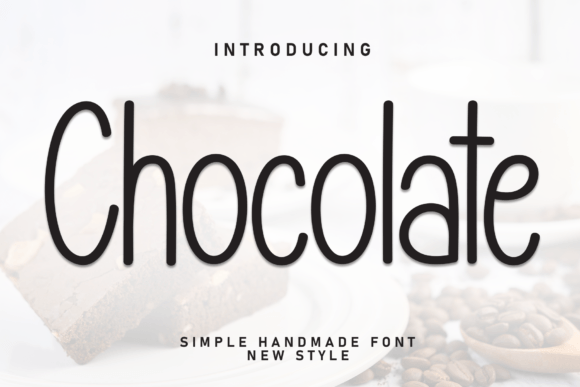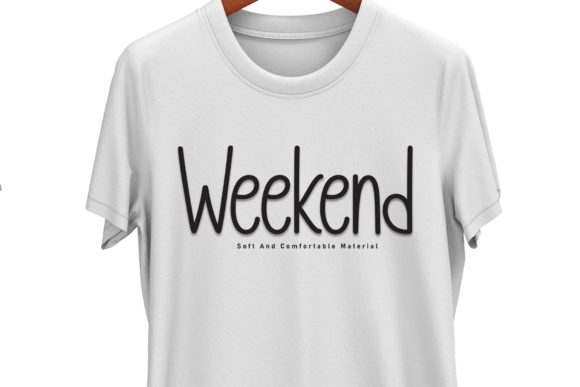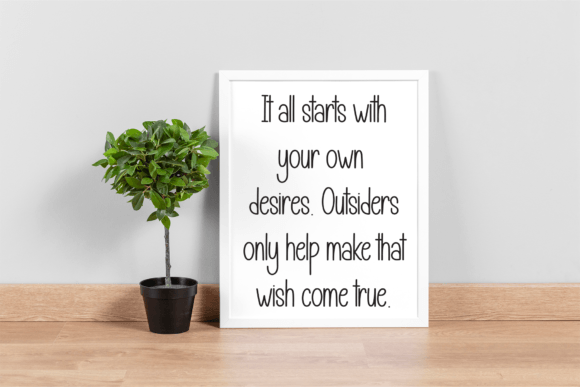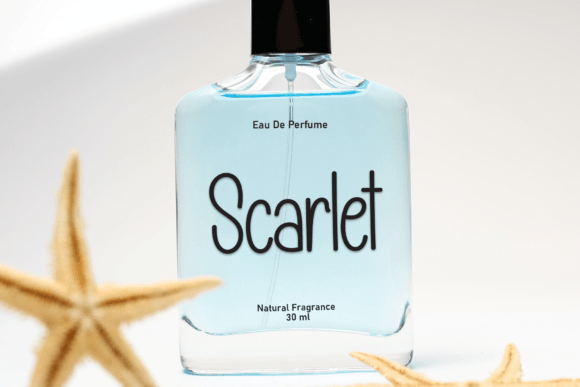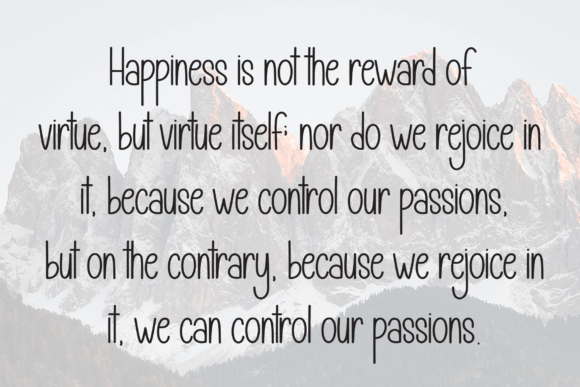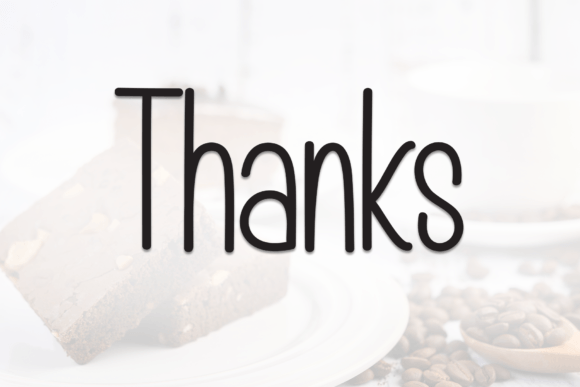
Chocolate Font Font
Chocolate is a sweet and friendly handwritten font. Cute and fun, this font is ideal for writing wedding invitations, cards, or any other design that might need a fun touch!